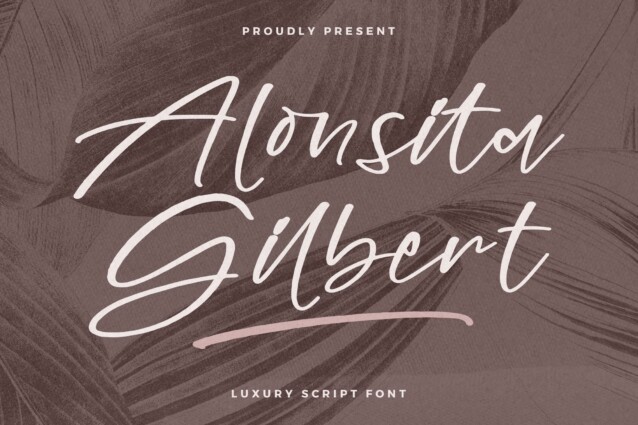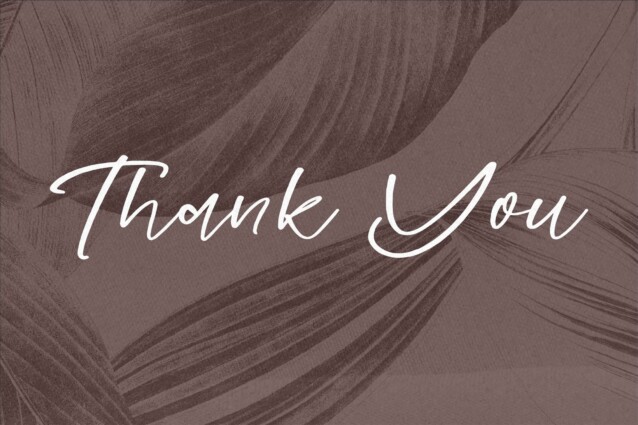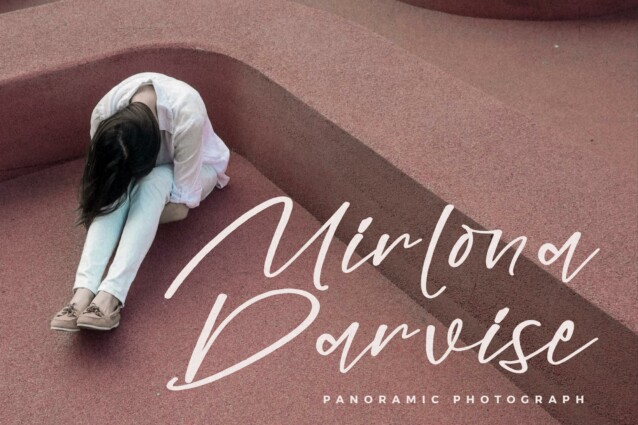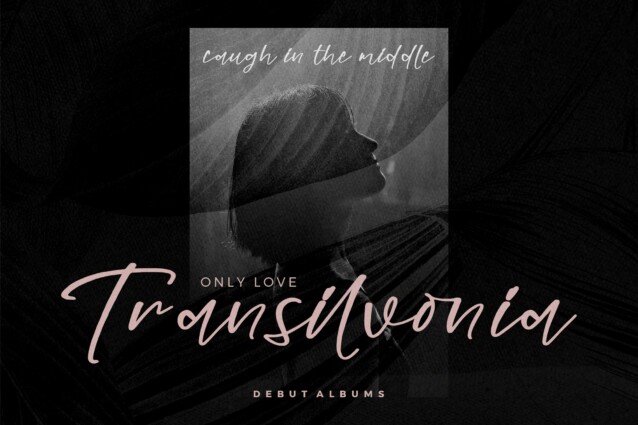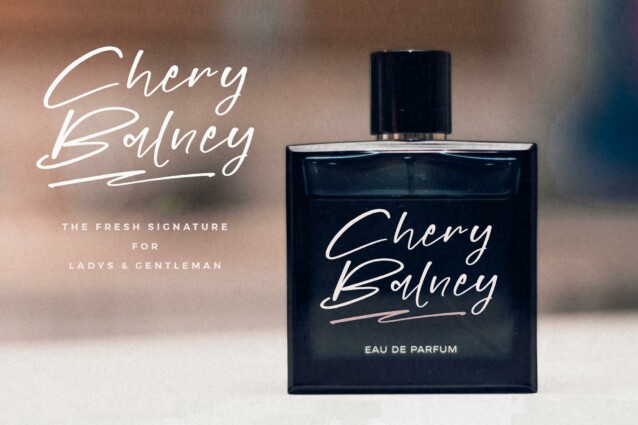
Alonsita Gilbert Font
Alonsita Gilbert Font is a Luxury Script Font , suitable for any projects such as: logos, branding projects, homeware designs, product packaging, mugs, quotes, posters, shopping bags, t-shirts, book covers, name card, invitation cards, greeting cards, label, photography, watermark, special events, and all your other lovely projects that need a beautiful script taste.